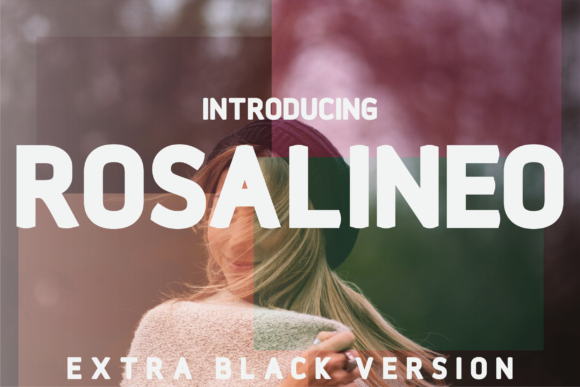
Rosalineo Extra-Black Font
Rosalineo Extra Black: A Symphony of Style
Unleash the power of Rosalineo Extra Black, a captivating sans serif font that will elevate your designs to new heights. Its sleek contours and sharp angles exude an aura of sophistication, making it the perfect choice for headlines, logos, and any other element demanding attention.
Inspired by the timeless Helvetica font, Rosalineo Extra Black inherits its versatility and legibility. Whether you're crafting web pages, brochures, or social media posts, this font will seamlessly adapt to any platform. Its crisp, defined strokes ensure readability even in small sizes, while its bold presence commands attention from afar.
Immerse yourself in the world of Rosalineo Extra Black and discover a font that sparks creativity and ignites inspiration. Its versatility empowers you to craft designs that resonate with your audience, leaving an unforgettable mark on their minds.